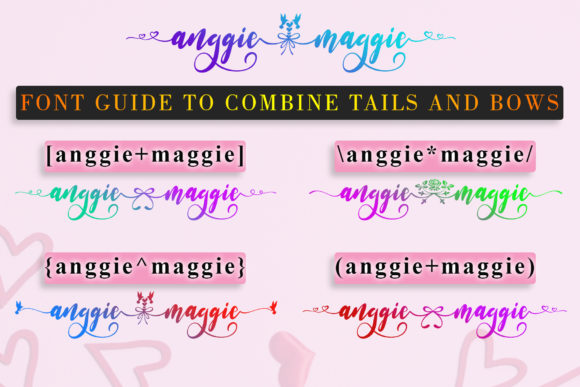
Introducing Anggie & Maggie Font: The Cute Handwritten Font That Will Steal Your Heart
Are you looking for a font that exudes warmth, playfulness, and romance? Look no further than Anggie & Maggie Font, a beautiful handwritten font that is sure to capture your heart. This lovely font features amazing heart-shaped swashes that add a touch of whimsy and charm to any design. In this article, we’ll take a closer look at Anggie & Maggie Font and explore its many uses, from creating gorgeous wedding invitations to crafting eye-catching social media posts.
What is Anggie & Maggie Font?
Anggie & Maggie Font is a cute handwritten font that is perfect for designers, crafters, and anyone looking to add a personal touch to their projects. This font is designed to mimic the look of handwritten script, with a playful and carefree feel that is sure to delight. The font features a range of characters, including letters, numbers, and punctuation, as well as heart-shaped swashes that can be used to add a decorative touch to your designs.
The Features of Anggie & Maggie Font
So, what makes Anggie & Maggie Font so special? Here are just a few of its standout features:
- Cute and playful design: Anggie & Maggie Font has a fun and carefree design that is perfect for creating playful and eye-catching designs.
- Heart-shaped swashes: The font features a range of heart-shaped swashes that can be used to add a decorative touch to your designs.
- Handwritten feel: The font has a warm and handwritten feel that is perfect for creating personal and authentic designs.
Uses for Anggie & Maggie Font
Anggie & Maggie Font is a versatile font that can be used for a wide range of projects. Here are just a few ideas to get you started:
- Wedding invitations: The font’s romantic and playful design makes it perfect for creating gorgeous wedding invitations that will set the tone for a special day.
- Stationary art: Anggie & Maggie Font can be used to create beautiful stationary art, including notecards, greeting cards, and more.
- Social media posts: The font’s playful design makes it perfect for creating eye-catching social media posts that will grab the attention of your followers.
- Greeting cards: Anggie & Maggie Font can be used to create cute and personalized greeting cards for any occasion.
Tips for Using Anggie & Maggie Font
Here are a few tips for getting the most out of Anggie & Maggie Font:
- Experiment with different colors: The font looks great in a range of colors, so don’t be afraid to experiment and find the perfect hue for your design.
- Use the heart-shaped swashes: The heart-shaped swashes are a standout feature of the font, so be sure to use them to add a decorative touch to your designs.
- Mix and match with other fonts: Anggie & Maggie Font pairs well with a range of other fonts, so feel free to experiment and find the perfect combination for your design.
Anggie & Maggie Font is a beautiful and versatile font that is perfect for designers, crafters, and anyone looking to add a personal touch to their projects. With its cute and playful design, heart-shaped swashes, and handwritten feel, this font is sure to capture your heart. Whether you’re creating gorgeous wedding invitations, beautiful stationary art, eye-catching social media posts, or cute greeting cards, Anggie & Maggie Font is the perfect choice.